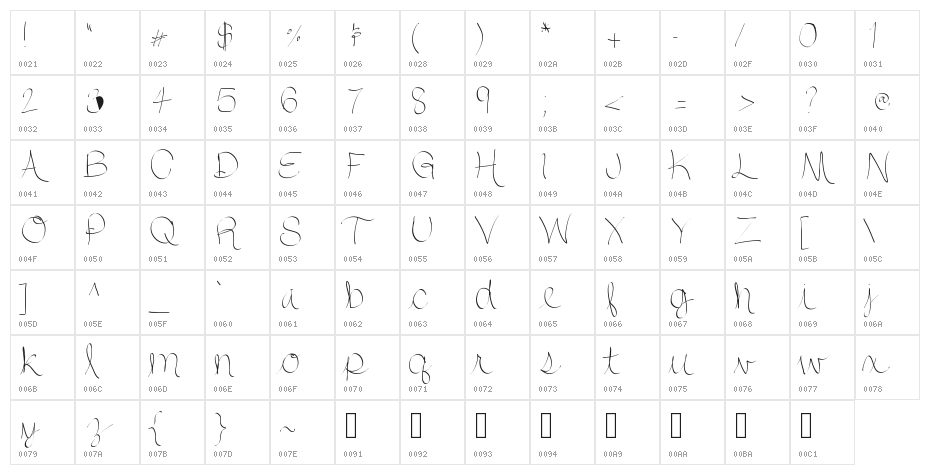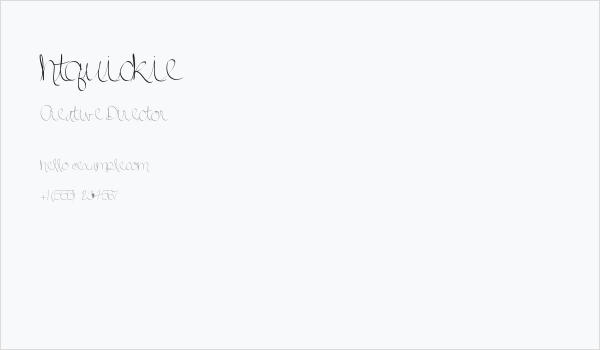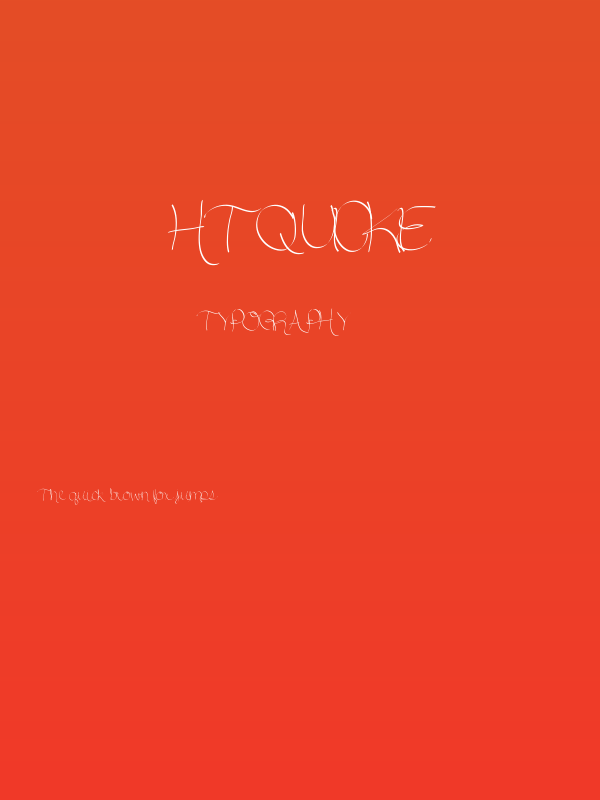
htquickie Font
htquickie Description
This font exudes a whimsical and artistic flair, characterized by its flowing, cursive style. The letters are interconnected with smooth, sweeping curves, giving it a handwritten appearance. The strokes vary in thickness, adding a dynamic and lively feel to the text. The uppercase letters maintain a consistent height, while the lowercase letters exhibit playful loops and swirls. Numbers and special characters follow the same fluid design, ensuring a cohesive look across all elements. This font is perfect for projects that require a personal touch or an artistic edge.
| Proposed Projects | Ideal for wedding invitations, greeting cards, artistic posters, and personal branding. |